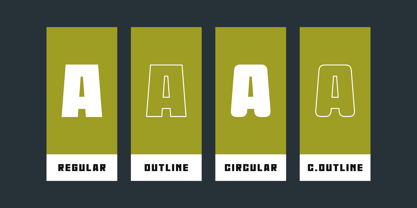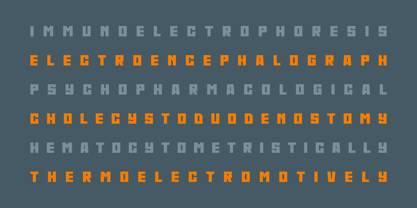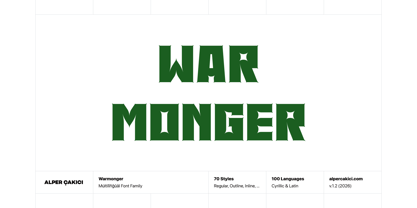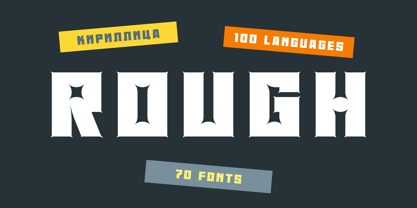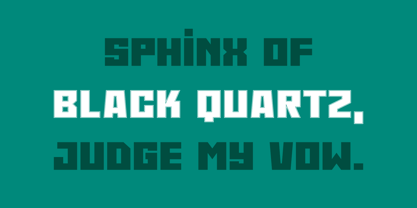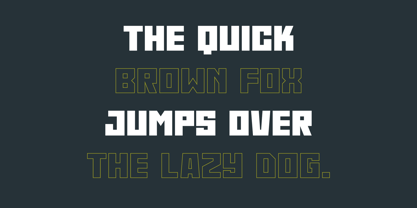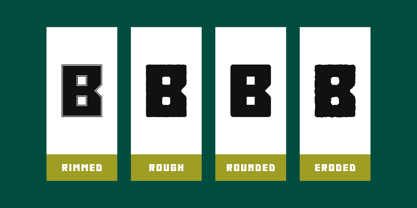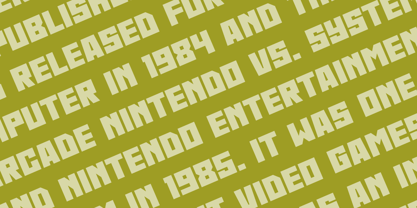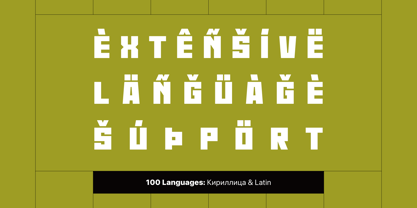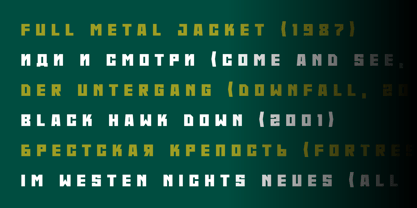
Warmonger
by AlperCakici
Warmonger is a bold display typeface built for impact. Heavy strokes, sharp structure, and commanding proportions give it an aggressive voice, while refined curves keep it versatile across styles. Designed as a high-energy headline system, Warmonger spans Angular, Circular, Rounded, Brush, Pencil, Outline, Inline, Rimmed, Rough, Noise, and Eroded variants — each with matching Italics. The Thorn subfamily introduces dramatic ink-trap corners and piercing terminals for a sharper, more tactical edge. From esports branding and metal-inspired posters to streetwear, album covers, gaming titles, and statement packaging, Warmonger dominates any layout that demands presence. With support for 100 languages across Cyrillic & Latin-based scripts, Warmonger is ready for global expression in bold, unapologetic style.
Designers: Alper Çakıcı
Foundry: AlperCakici